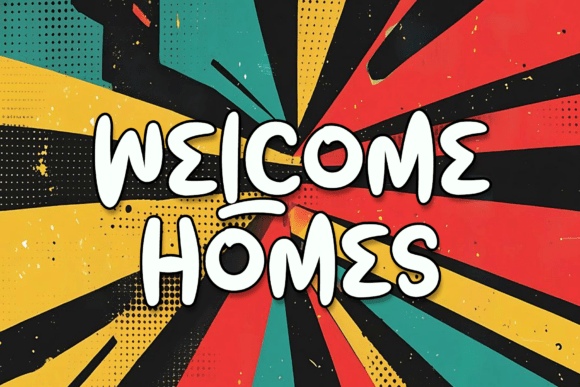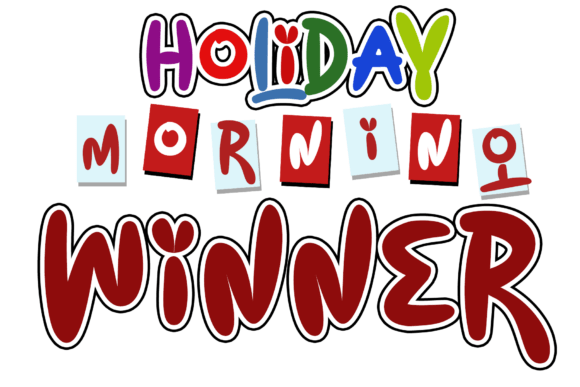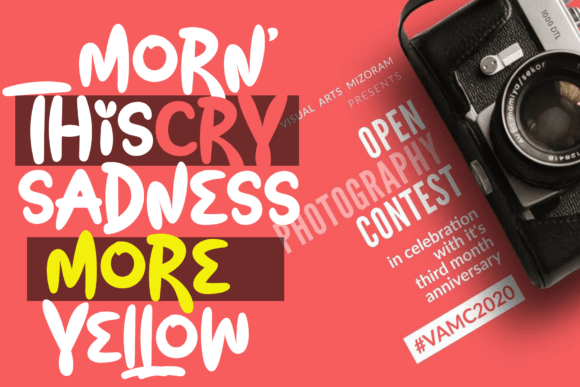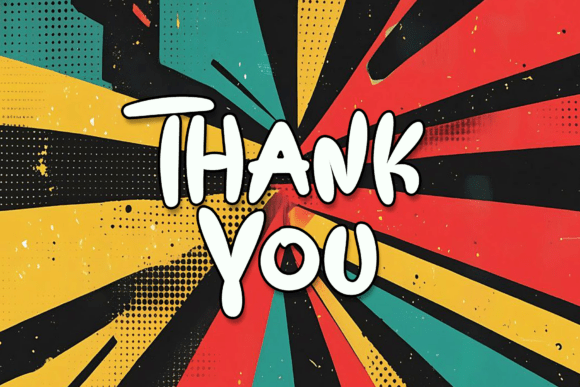
Introduction to Helper Font
Have you ever been in the middle of a creative project, staring at a blank screen, and suddenly the idea hits you? The words flow effortlessly, and the design starts to come together. This is the magic of finding the perfect font. For designers, a great font can be the difference between a good design and a great one. And, that’s where the Helper Font comes in – a game-changing display font that’s sure to elevate your creative projects.
With its energetic, hand-drawn silhouette and heavy character proportions, the Helper Font is a standout asset for high-impact youth branding, creative product packaging, and cheerful marketing headers. Its modern and fun design makes it a valuable resource for designers looking to add a professional touch to their work. Plus, with a free download option, you can start using it in your next project today.
Whether you’re working on a social media campaign, designing a product label, or creating a marketing header, the Helper Font is the perfect design resource to help you achieve your vision. Its high-quality design and transparent background make it easy to use and customize, giving you the freedom to create something truly unique and eye-catching.
Key Features of Helper Font
- Unique characteristics include a modern and minimalist aesthetic, making it suitable for a wide range of creative projects.
- Designed to be highly legible, even at small font sizes, making it an ideal choice for presentations, signage, and other display-based designs.
Honest Review: Helper Font
As a designer, I’m always on the lookout for high-quality design resources to elevate my creative projects. Recently, I stumbled upon the Helper Font, which caught my eye with its modern and clean aesthetic.
- The font is highly versatile and can be used for a wide range of creative projects, from logos to typography-based designs.
- The font is a bit limited in terms of customization options, which may not be suitable for designers who require a high degree of flexibility.
- The font family is relatively small, which may not be ideal for projects that require a large font size.
Overall, I’m impressed with the Helper Font’s high quality and versatility. While it may not be the perfect fit for every design project, it’s an excellent resource for designers who need a modern and clean font for their creative projects.
Helper Font
For the most out of the Helper Font, try combining it with other design resources, such as icons and graphics. You can also experiment with different font sizes and styles to create a unique and eye-catching design.
The Helper Font is perfect for a variety of creative projects, including: